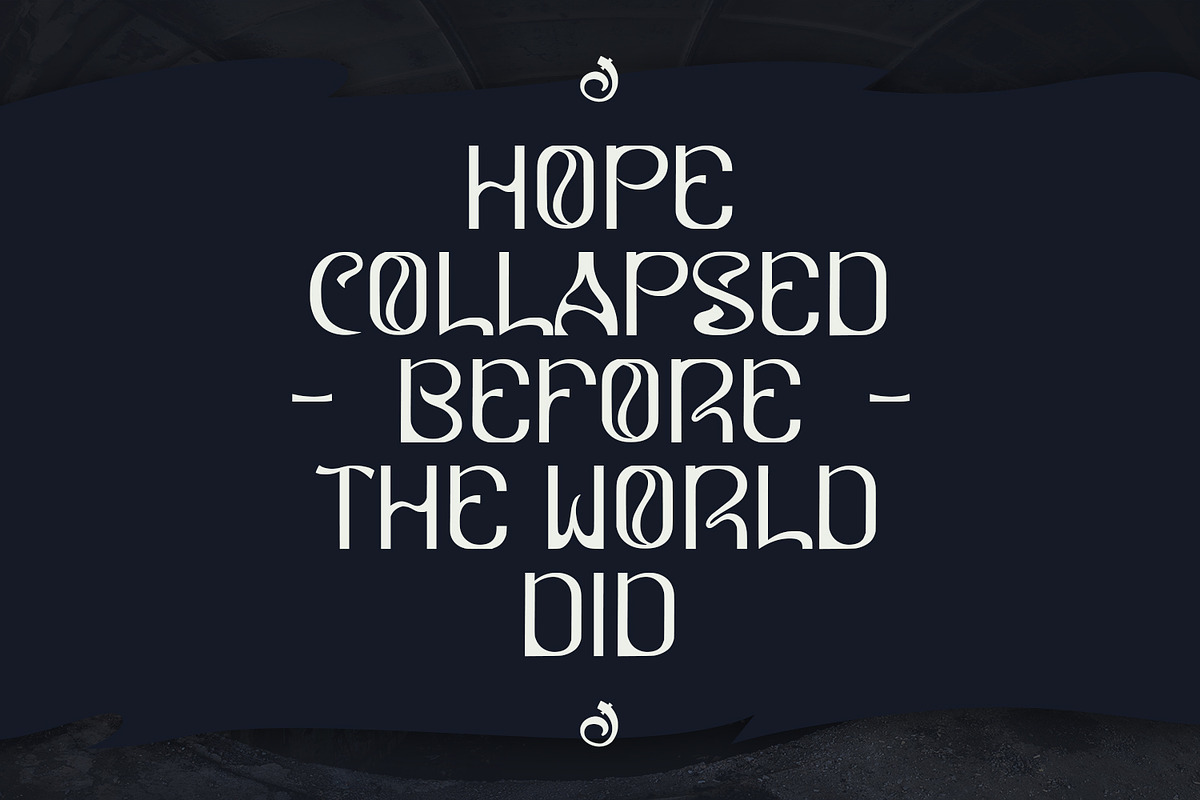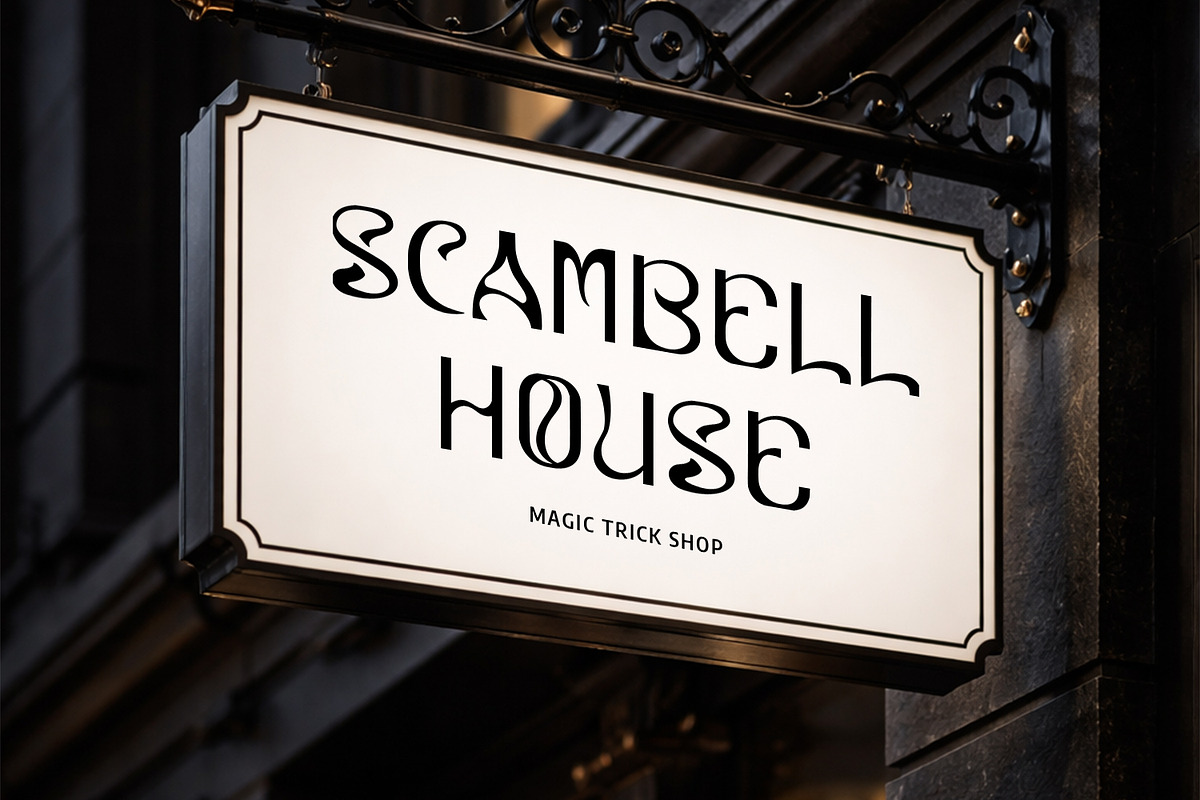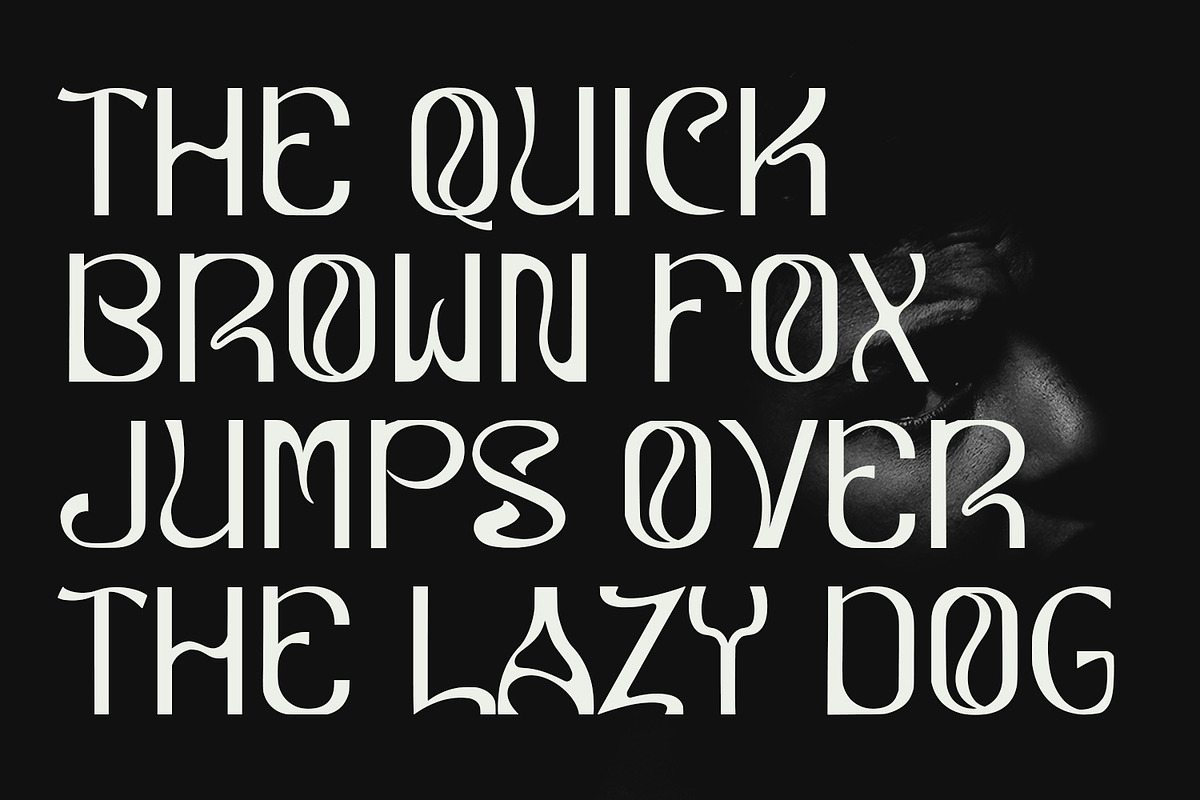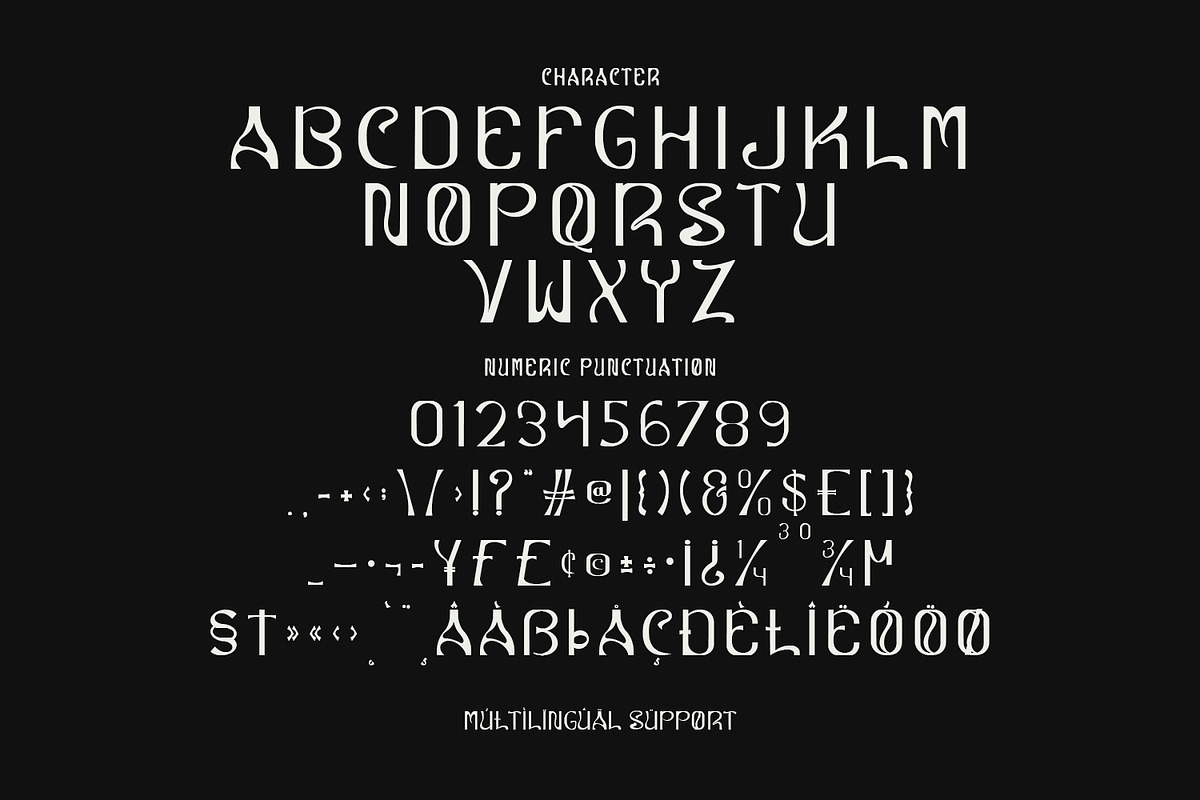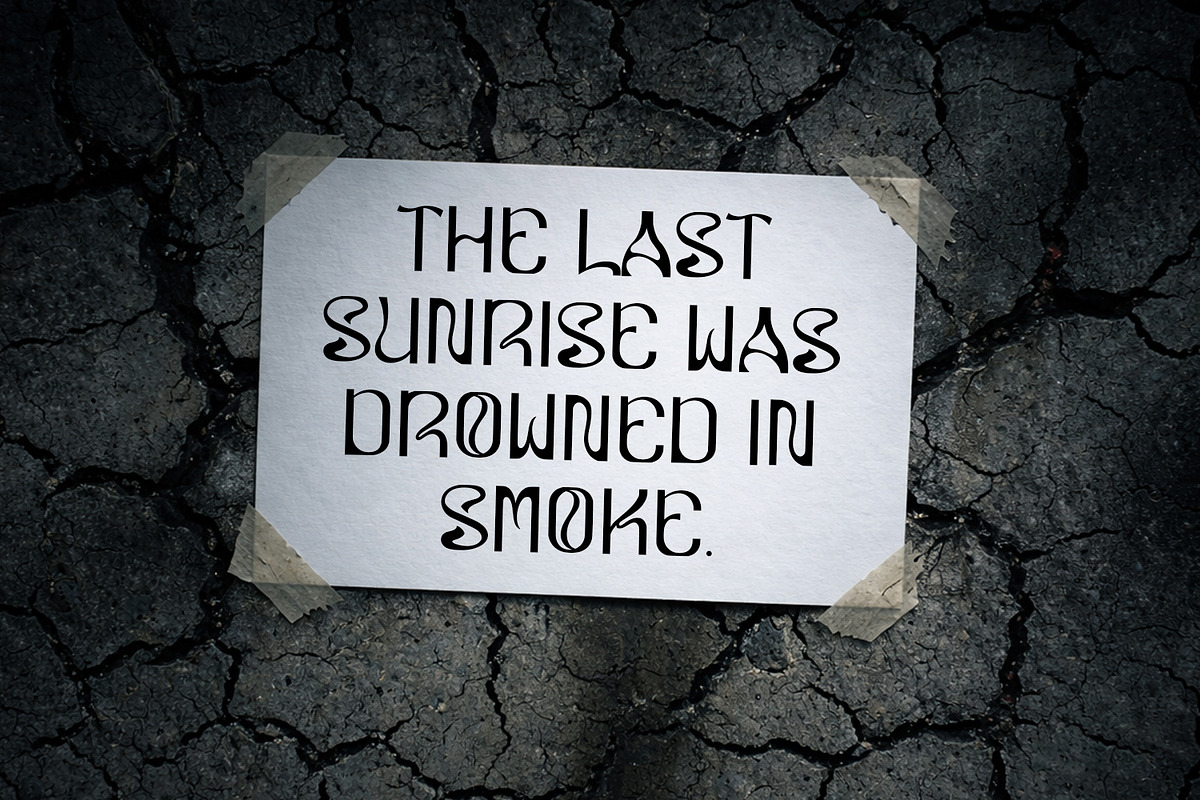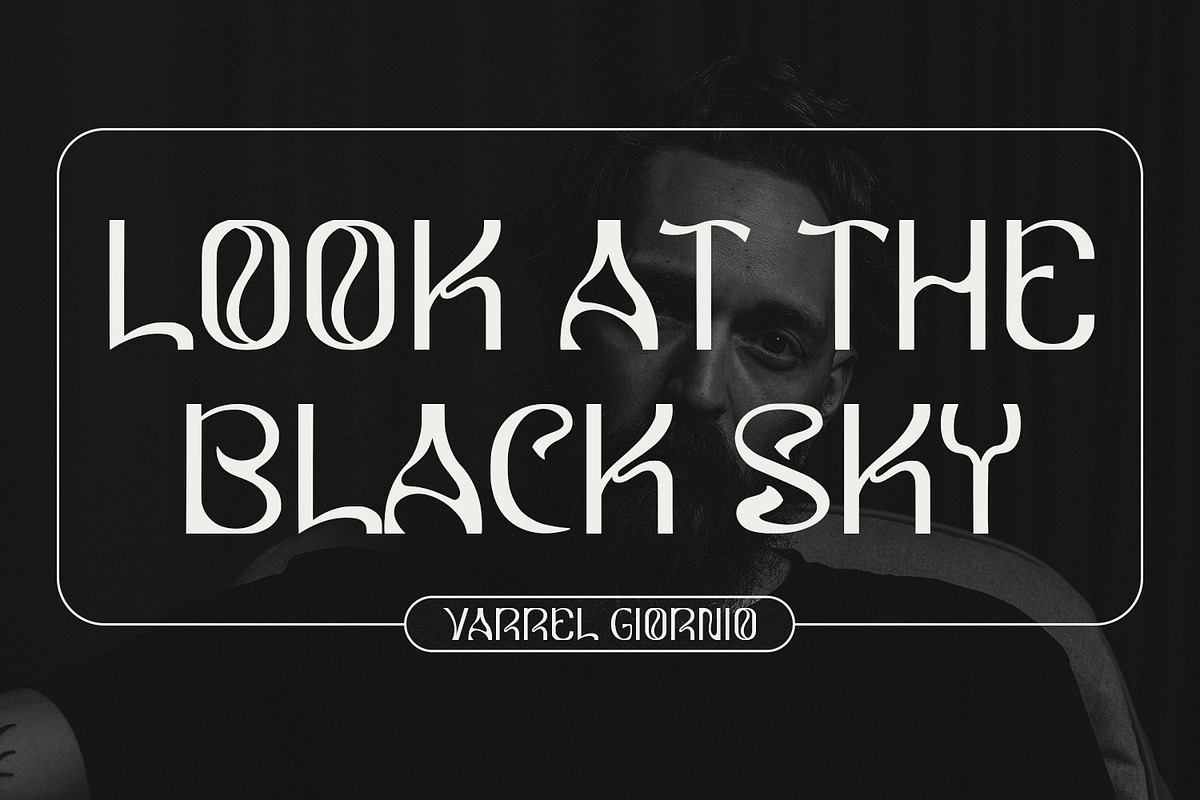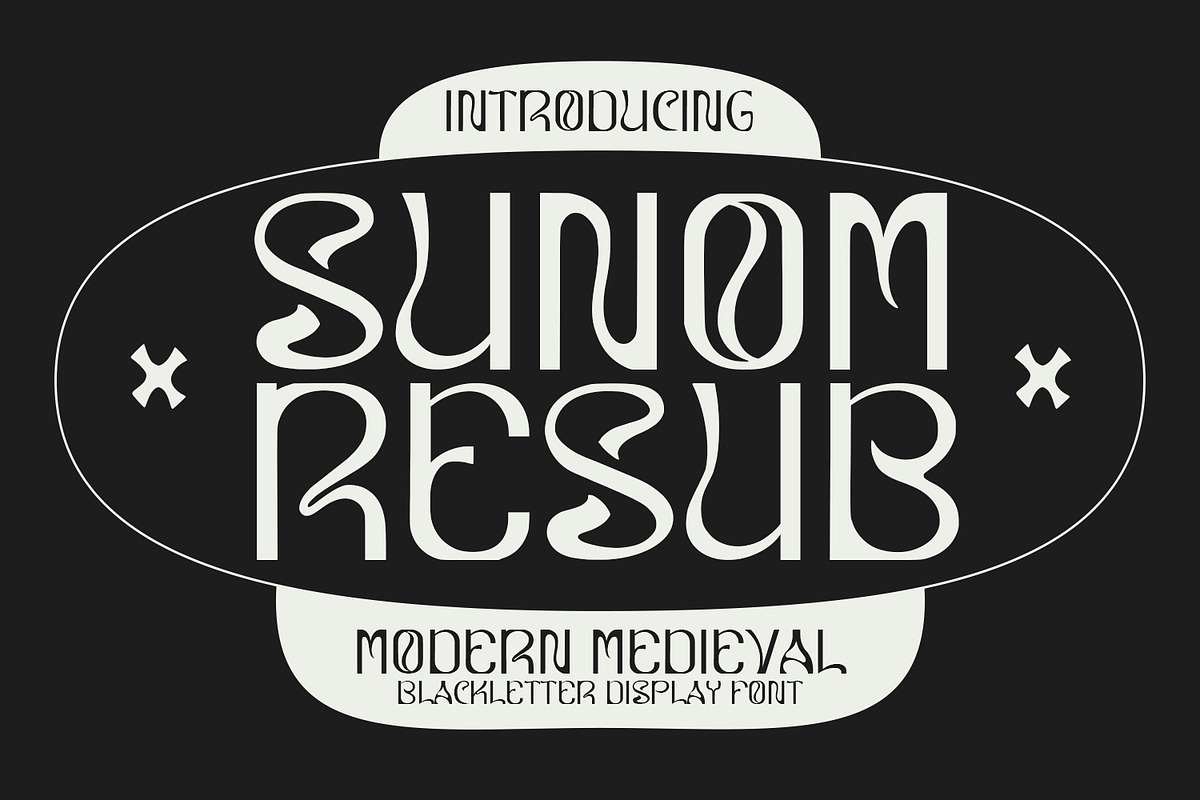
Sunomresub Modern Blackletter Font
Sunom Resub is a striking display font that bridges the gap between ancient manuscript aesthetics and contemporary graphic design. Characterized by its unique fluid curves and sharp, high contrast terminals, this font reinterprets traditional Blackletter forms with a psychedelic, "liquid" twist. Its elegant yet slightly haunting letterforms make it an ideal choice for branding projects that require a touch of mystery, dark fantasy, or gothic sophistication. Whether used for editorial layouts, music, or mystical themed, Sunom Resub demands attention with its bold, artistic presence.
- Full Character Set: Includes a complete uppercase alphabet.
- Full Numeric & Punctuation Support: Includes all standard symbols and numbers.
- Multilingual Support: Ready for global use with a wide range of accented characters and special symbols.